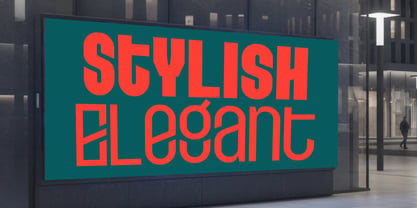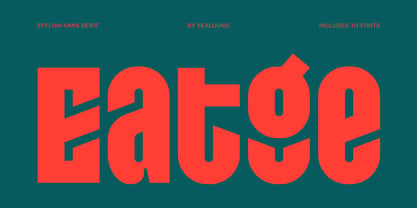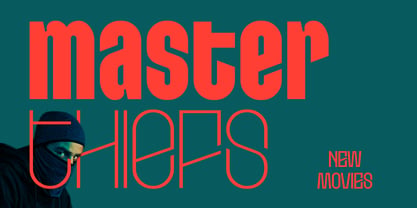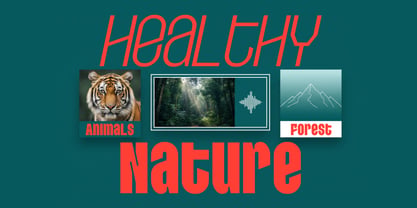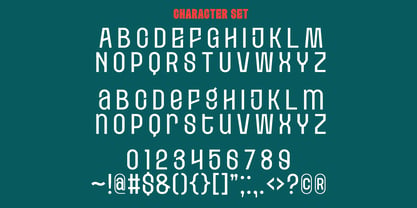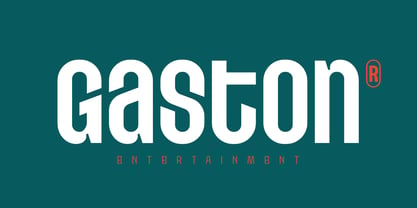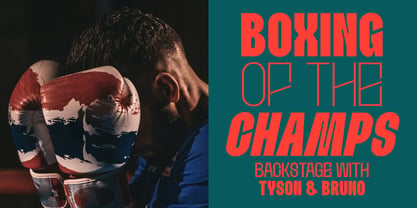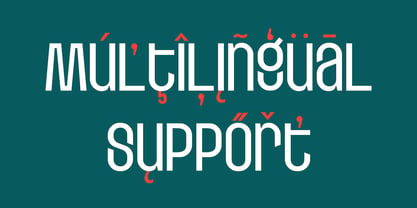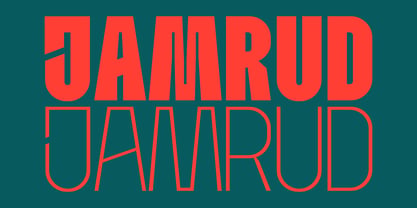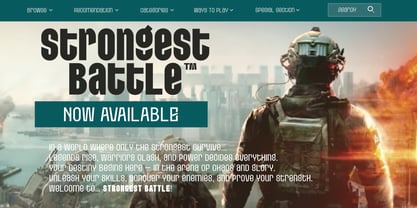
Etgea
Die Schriftfamilie Etgea wurde von Saiful Anwar entworfen und von Sealoung veröffentlicht. Etgea enthält 10 Stile und Familienpaketoptionen. Mehr über diese Familie
Eatge Stylish Sans Serif Family – From Thin to Bold & Italic Eatge is a stylish sans serif typeface family with a refined, clean, and versatile aesthetic. It features weights ranging from Thin to Bold, along with matching Italic styles, offering complete flexibility for any creative or professional project. Designed with a perfect balance of sleek lines and minimalist forms, Eatge works beautifully across a wide range of design uses, including: Branding and Logo Design Headlines and Editorial Layouts Posters and Banners Websites and Mobile Interfaces Presentations and Print Media Font Features: 10 Styles (Thin to Bold + Italic) Full multilingual support (Western, Central, and Eastern European languages) Includes uppercase, lowercase, numerals, and punctuation With its extensive range of weights and italics, Eatge makes it effortless to create strong, stylish, and visually appealing typography for any project.
Designer: Saiful Anwar
Foundry: Sealoung
Etgea